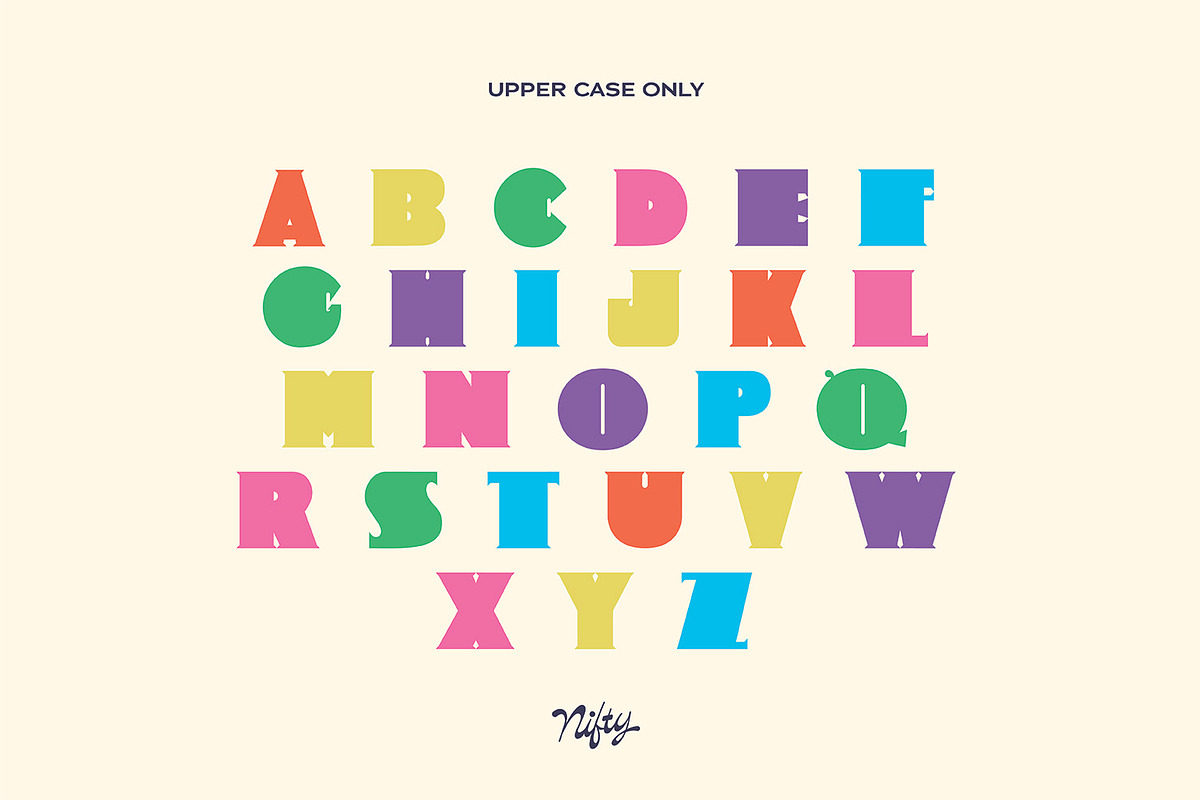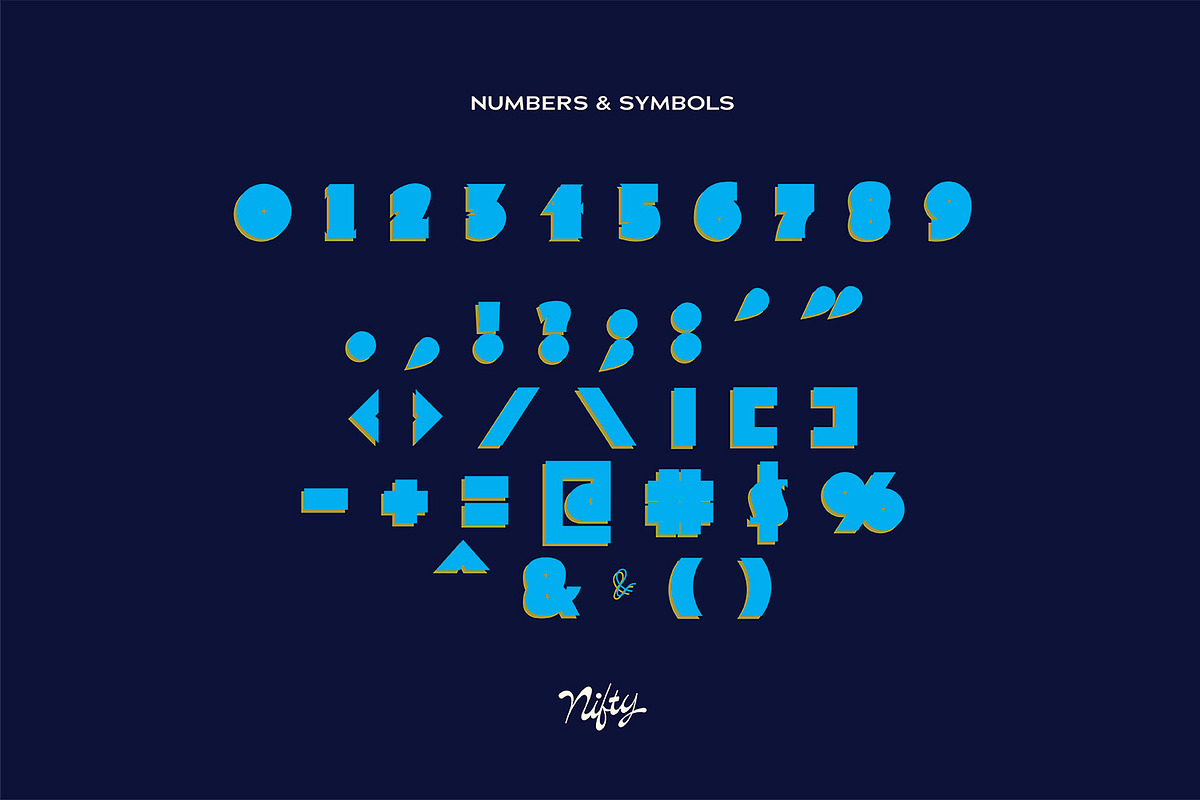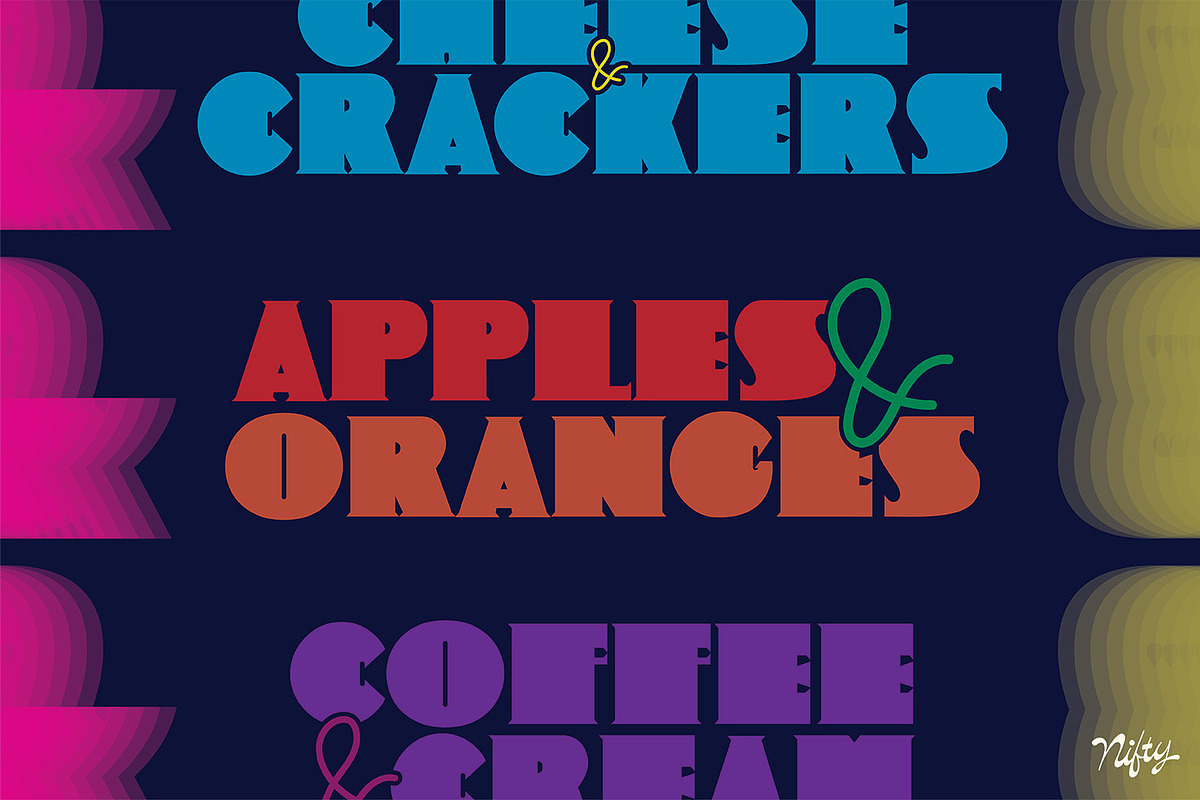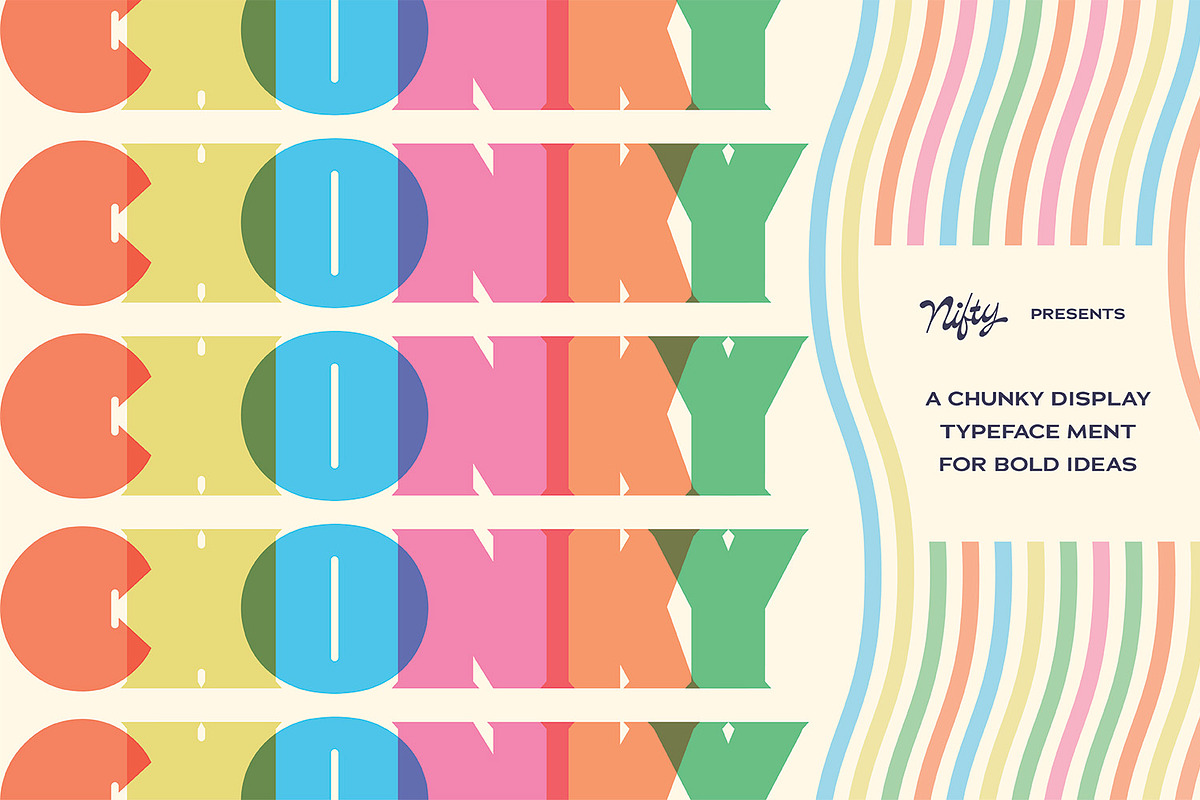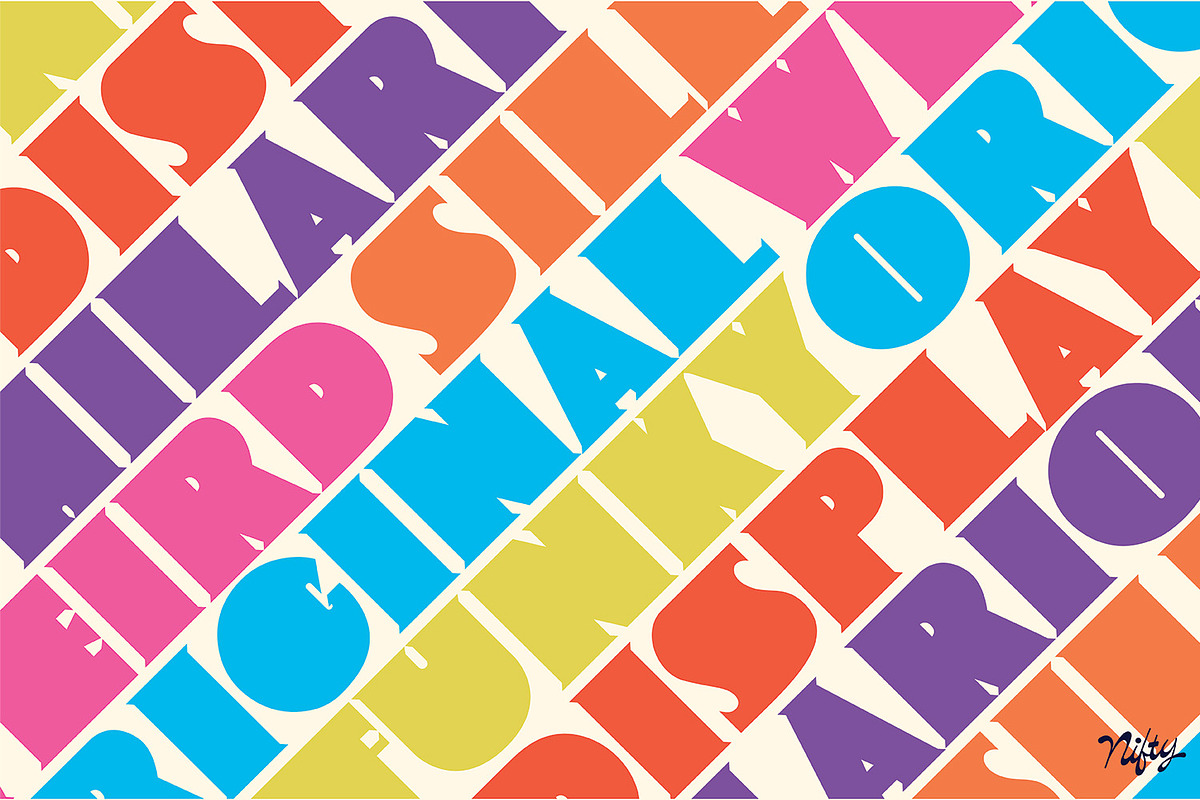
CHONKY - Display Font - By Nifty
CHONKY is the chunkiest display font to embolden all your best ideas! Each letter, number and symbol were hand drawn by Nikki Dunn owner of Nifty Branding.